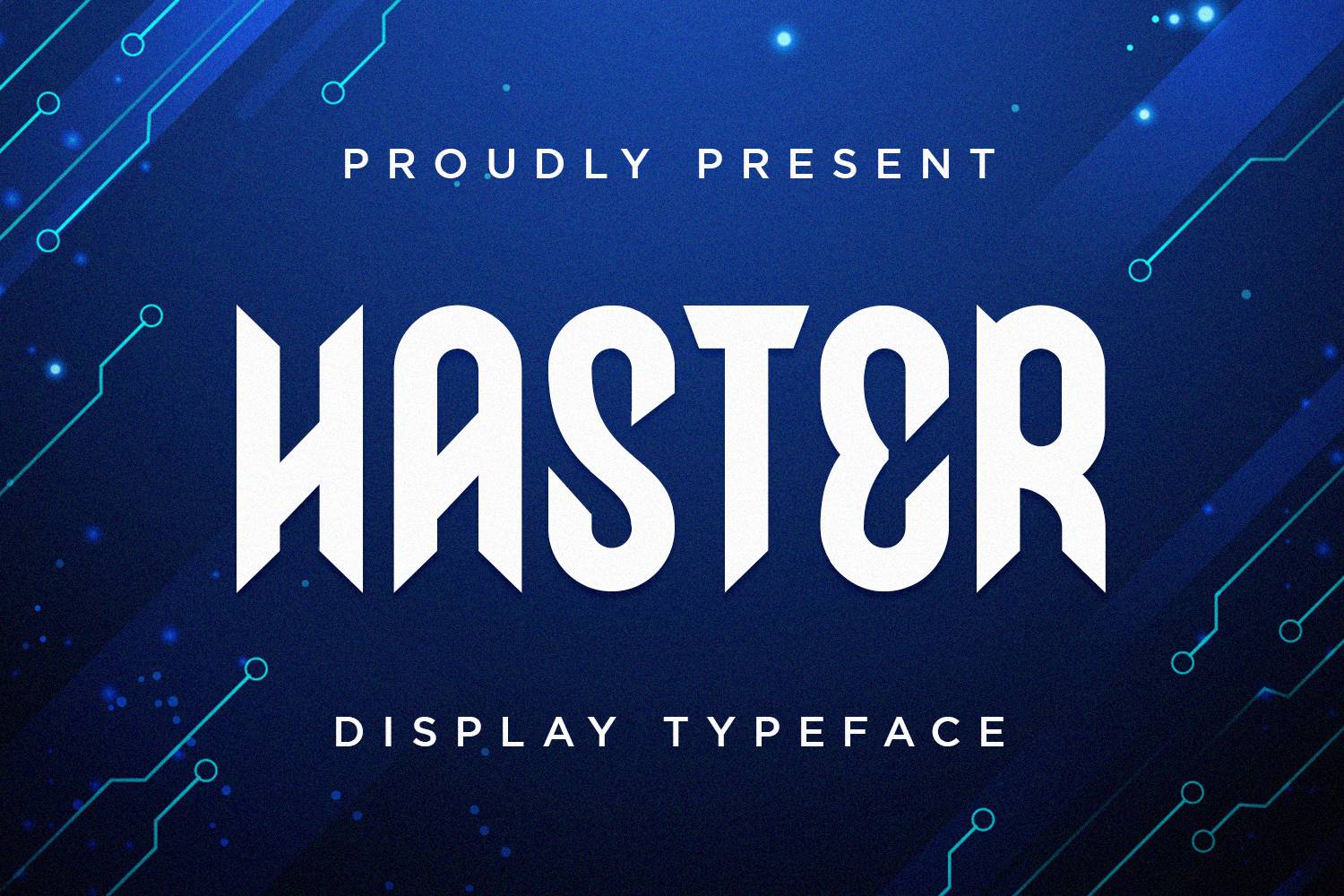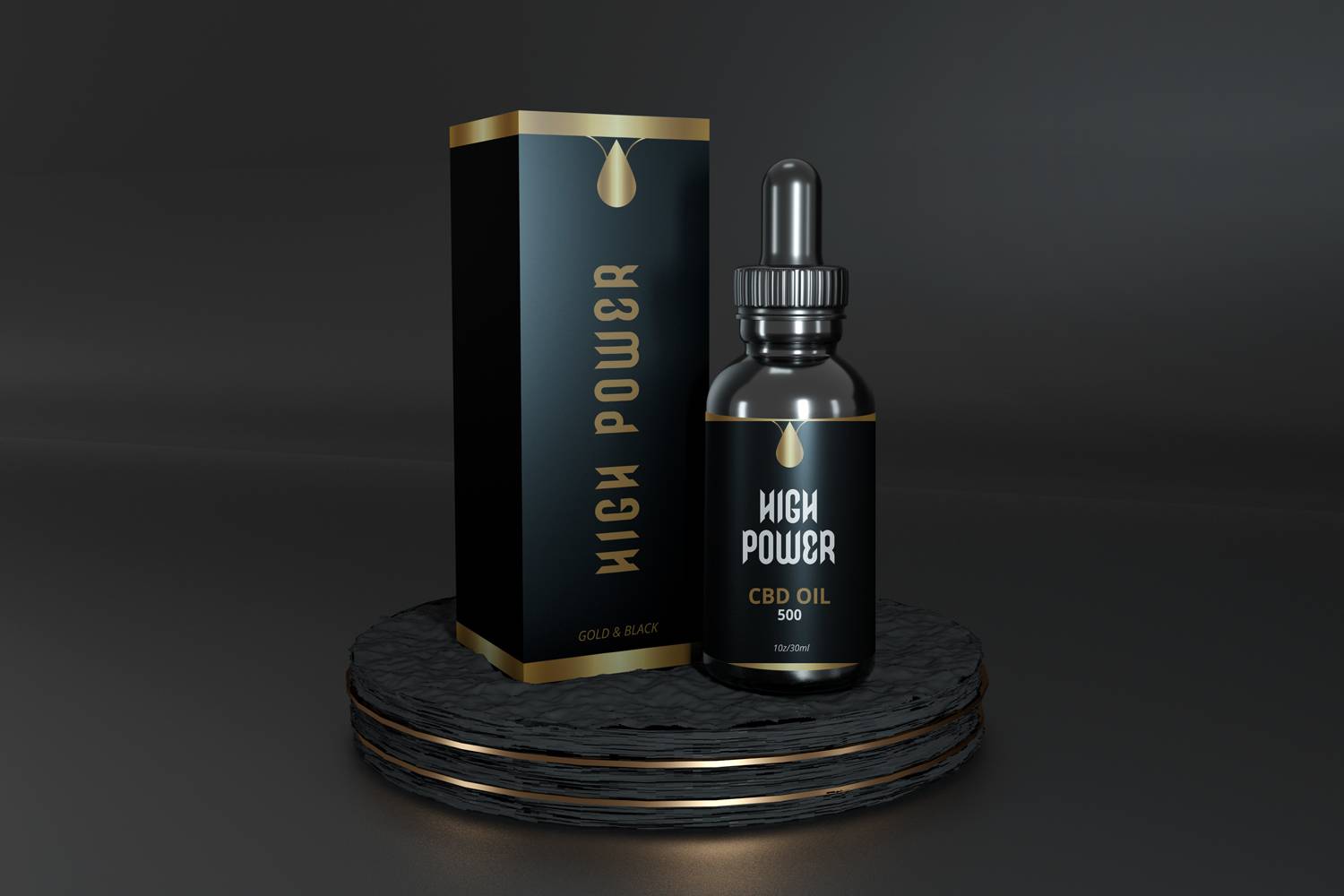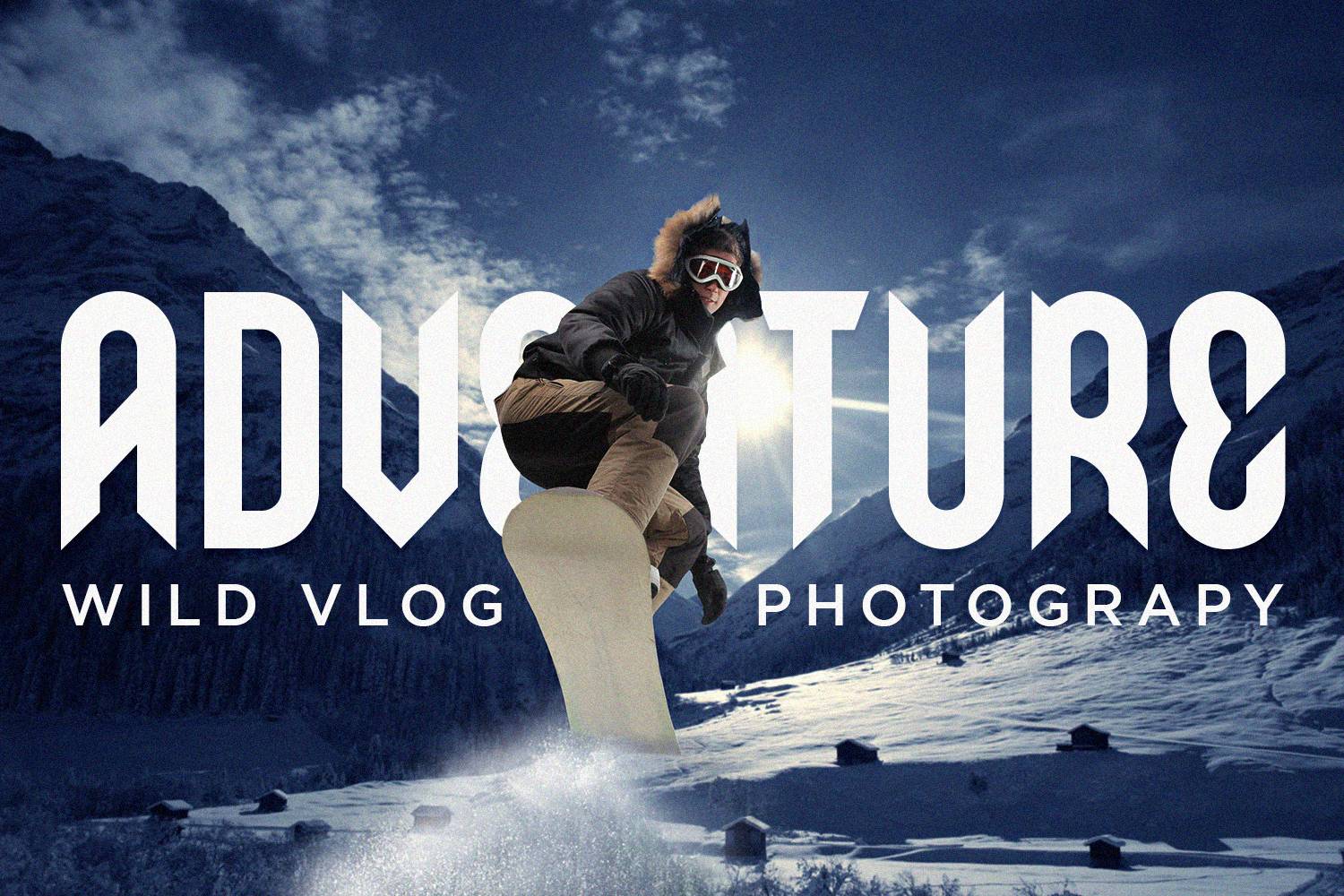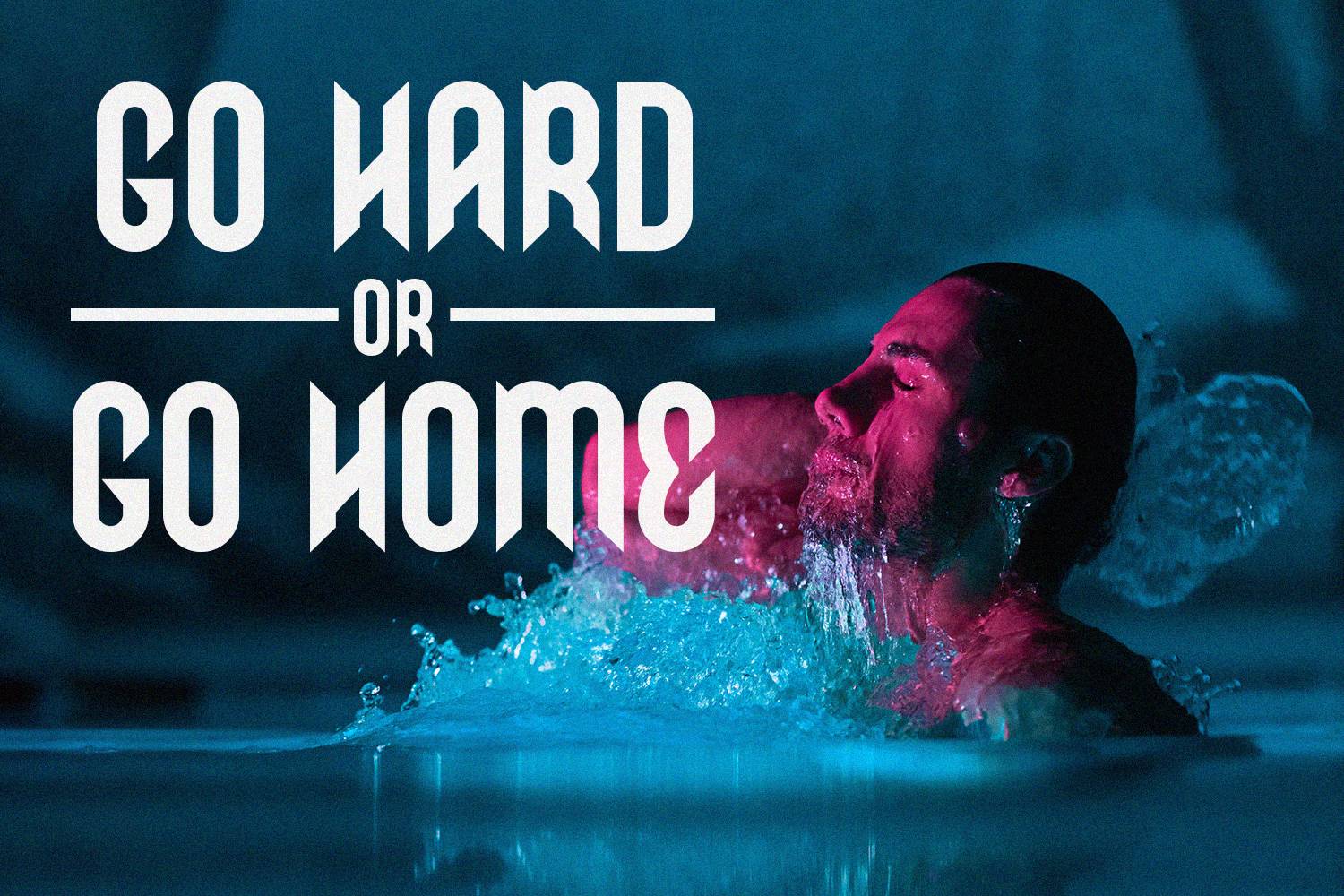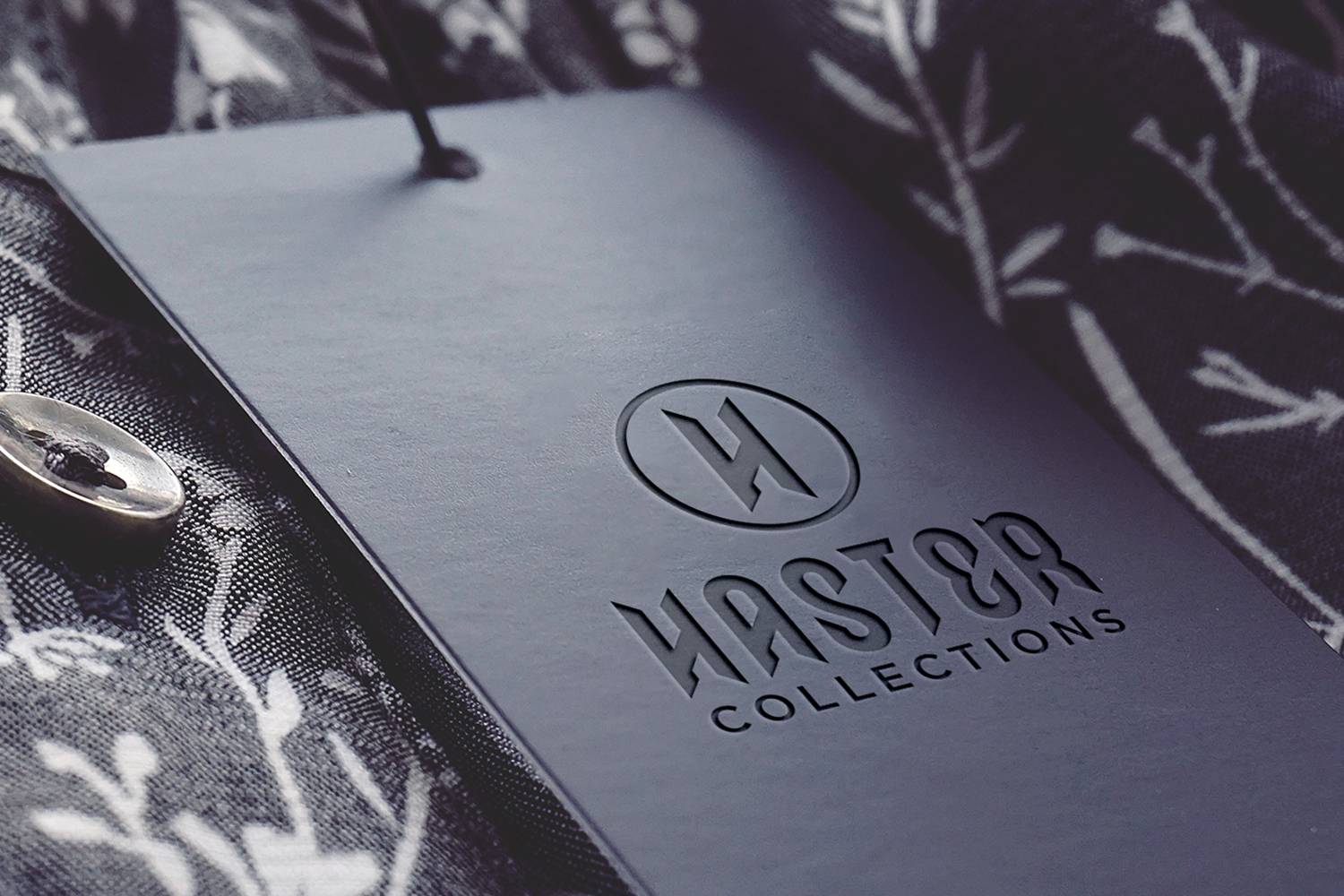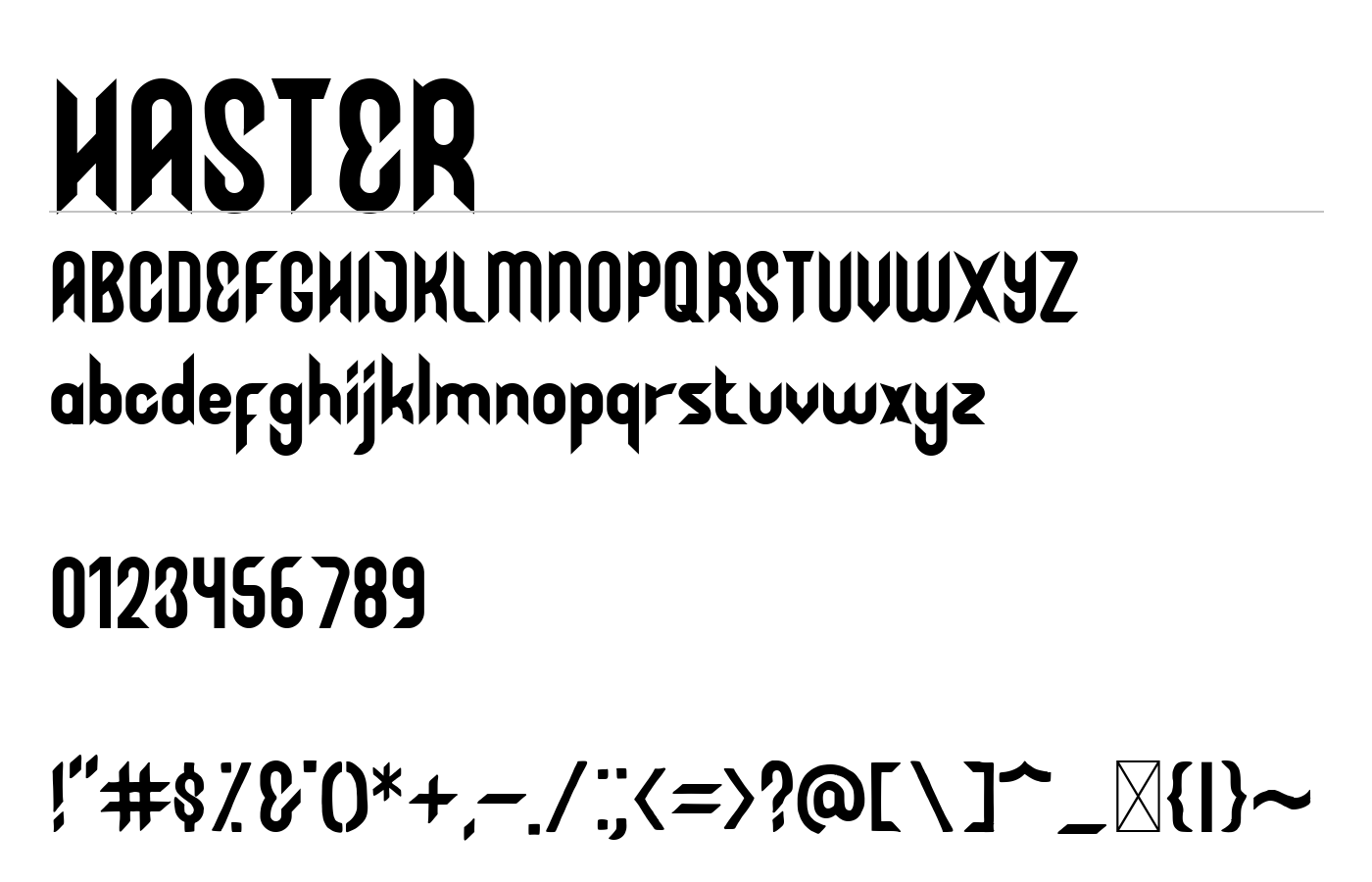
Haster is a bold, condensed sans serif font with a striking geometric and angular design. Its sharp edges and unique letterforms give it a modern, edgy personality that suits branding, headlines, and posters seeking a strong, contemporary impact. This font works well for creative projects where distinctiveness and visual authority are key.
Haster Font
About Haster Font